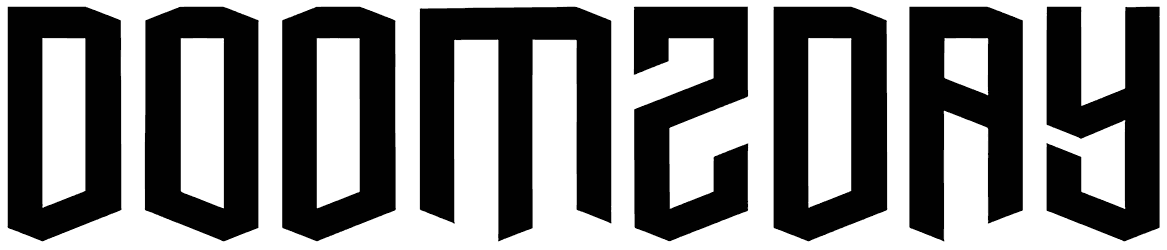
Land+Mine Font
Land Mine Font
If you were looking for a gothic font to ramp up your text designs, you should take a look at Land+Mine. This one features bold and thick characters. It’s useable for logos, headlines, shop signs, etc. Notice that it contains only uppercase letters. To get more edgy fonts, browse Resource Boy now.
Designed by: Geronimo Font Studios